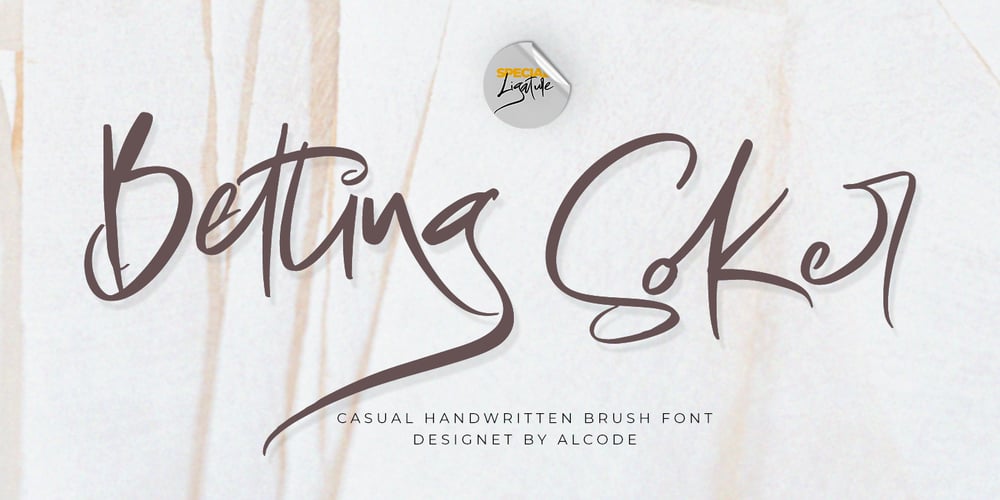
Betting Soker Font Family was designed by Sukjana Almunandar and published by Alcode. Betting Soker contains 1 styles and family package options. Betting Soker is an casual handwitten fontinspired by natural brush typography. Written in rapid motion using a slightly dry brush pen. This will give you a fresh and elegant design. Betting Soker comes with uppercase and lowercase letters, large sets and small sets, numbers, alternative styles for several lowercase characters are also available that make your text and design more attractive.Try Betting Soker, enjoy the richness of OpenType features and let her fun and elegant excitement make you happy and enhance your creativity! You can use this font very easily.- Included multilingual support and special ligatures